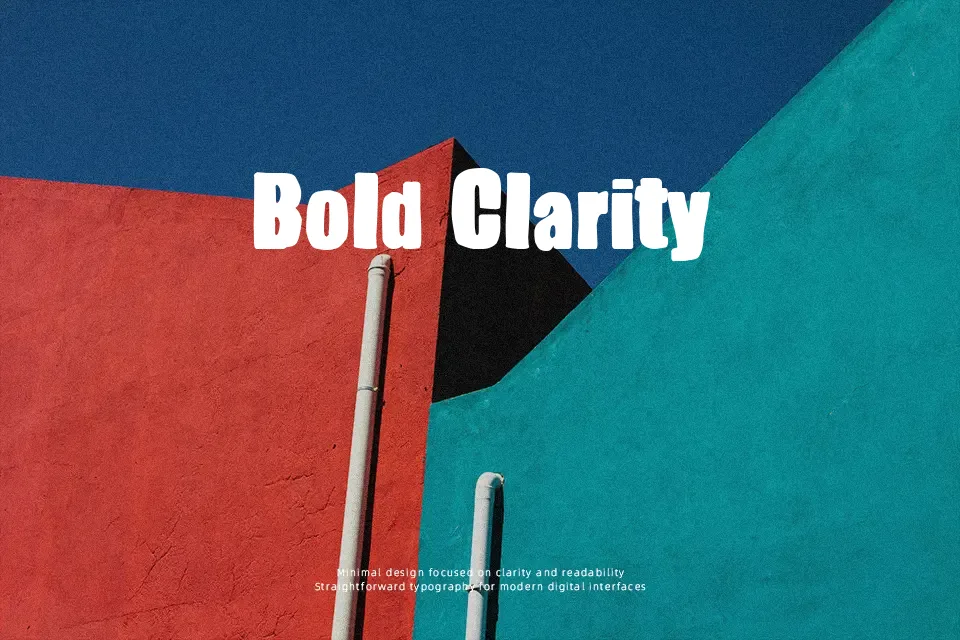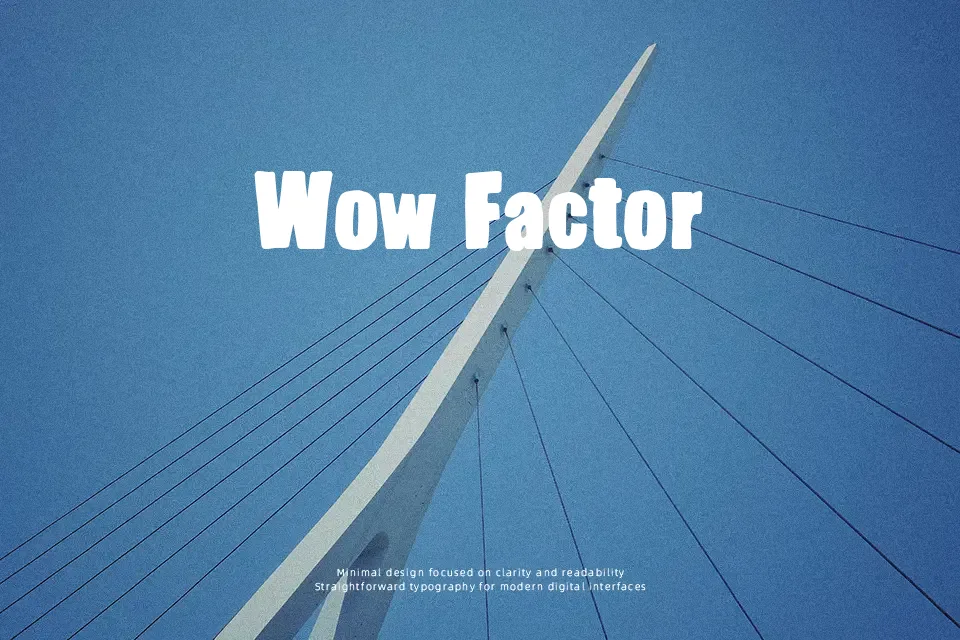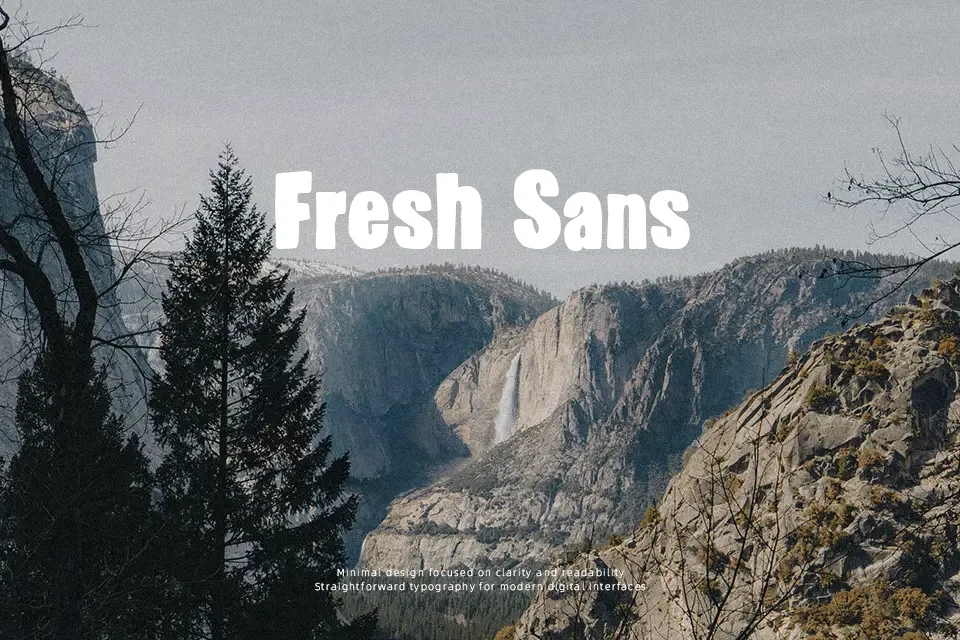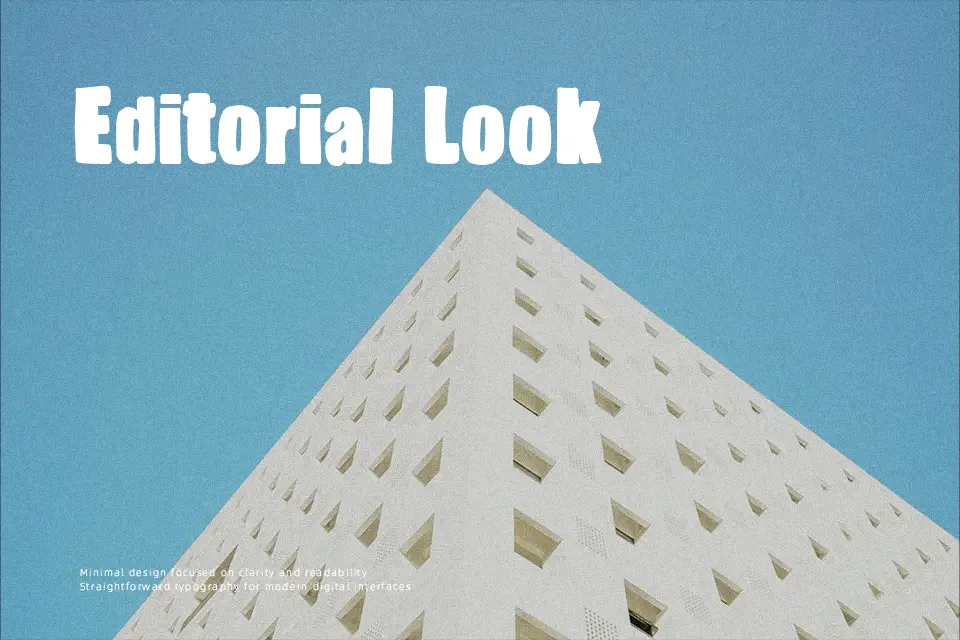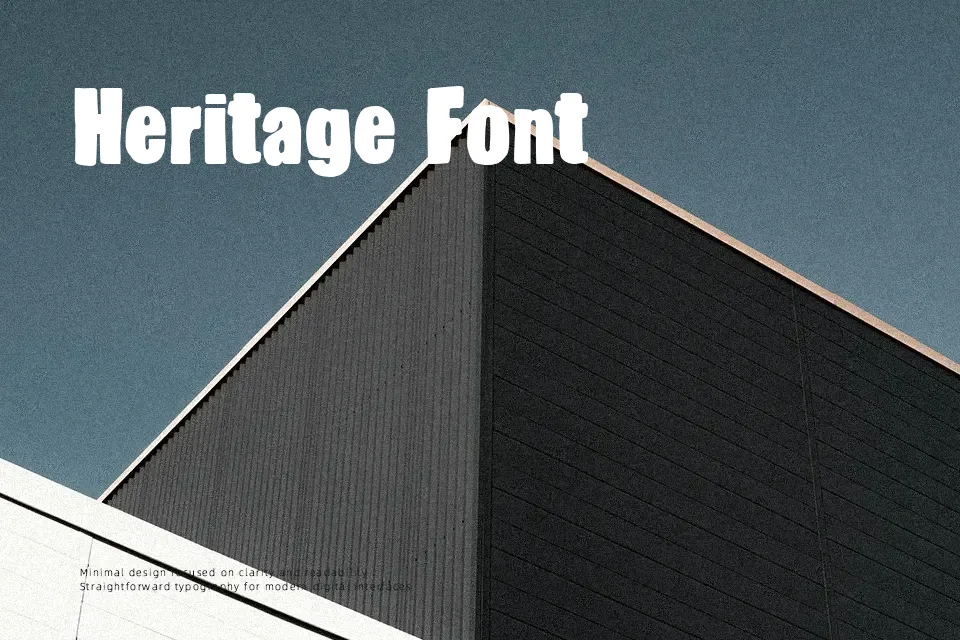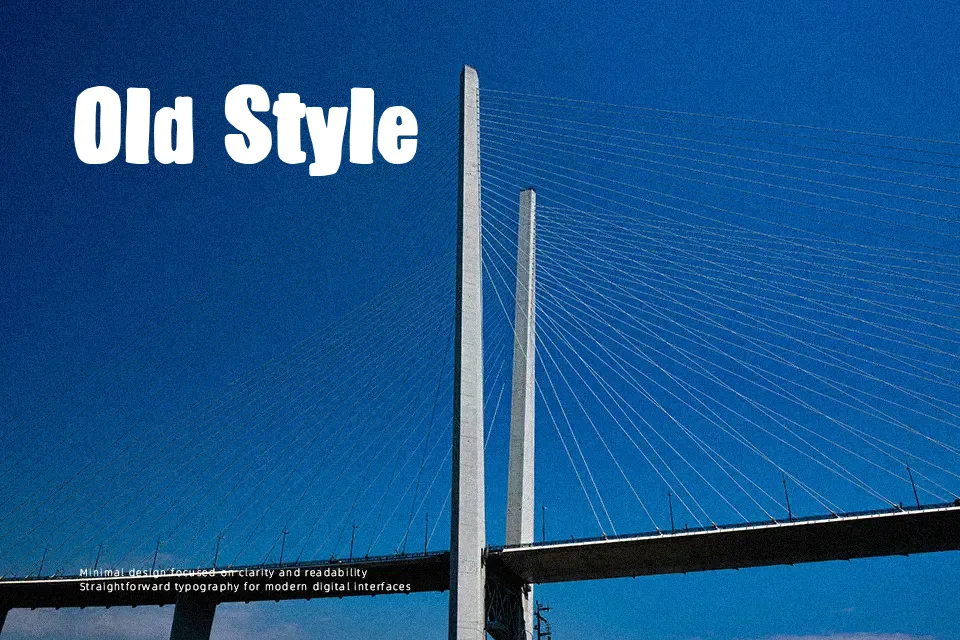
Super Impacto Font
Super Impacto Font uses heavy, compact letterforms with a strong display-oriented presence. The strokes appear thick and consistently weighted, while the broad shapes create a dense rhythm that holds attention in large text. Its uppercase-focused visual character works well for short titles, poster copy, and graphic treatments that need immediate contrast against an image or colored background. Spacing is best handled generously when setting longer words, as the dense forms can visually crowd together. The typeface remains most effective at headline sizes; its weight and decorative character make continuous reading and small supporting text less comfortable.
concert posters,streetwear graphics,music cover titles,advertising headlines
long paragraph text,small interface labels,corporate reports,dense editorial layouts
Perfect for advertising, headline, and music, with a bold and decorative style.